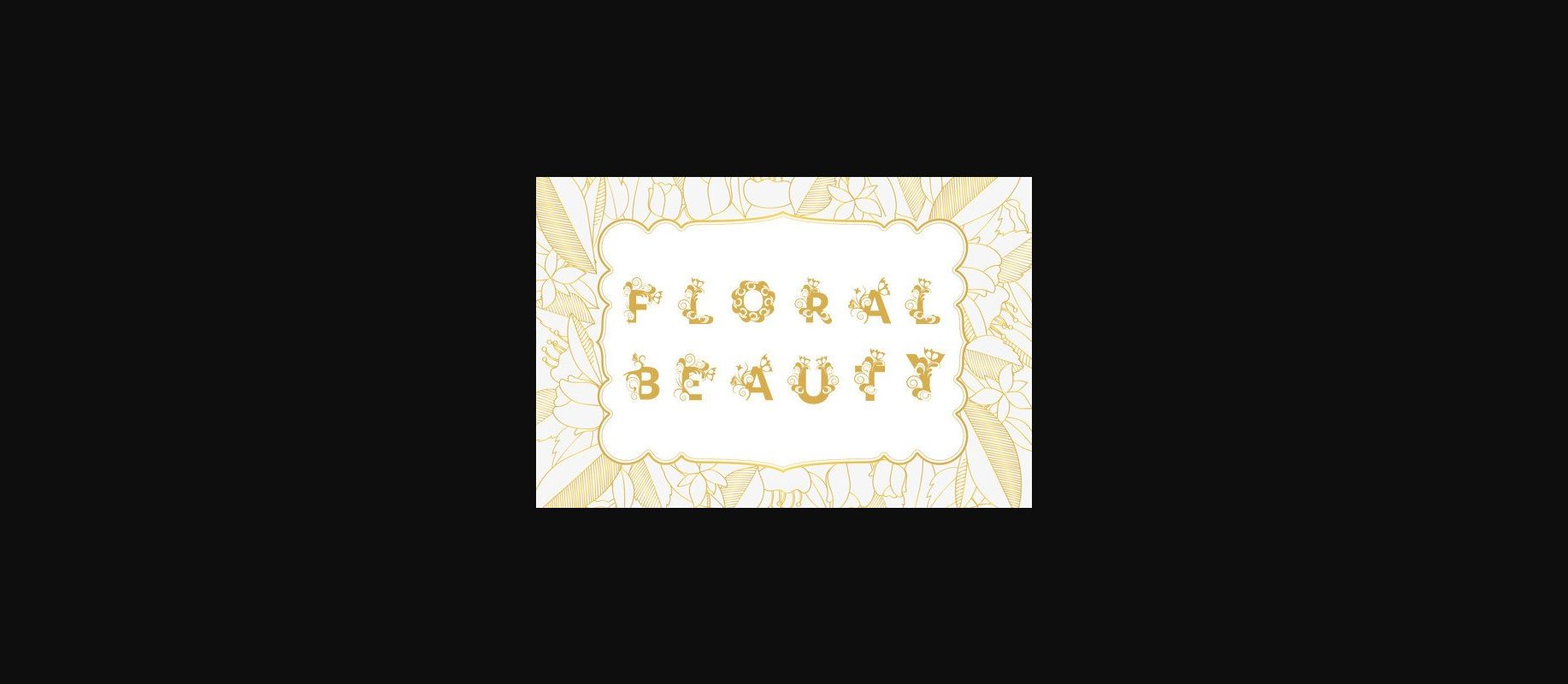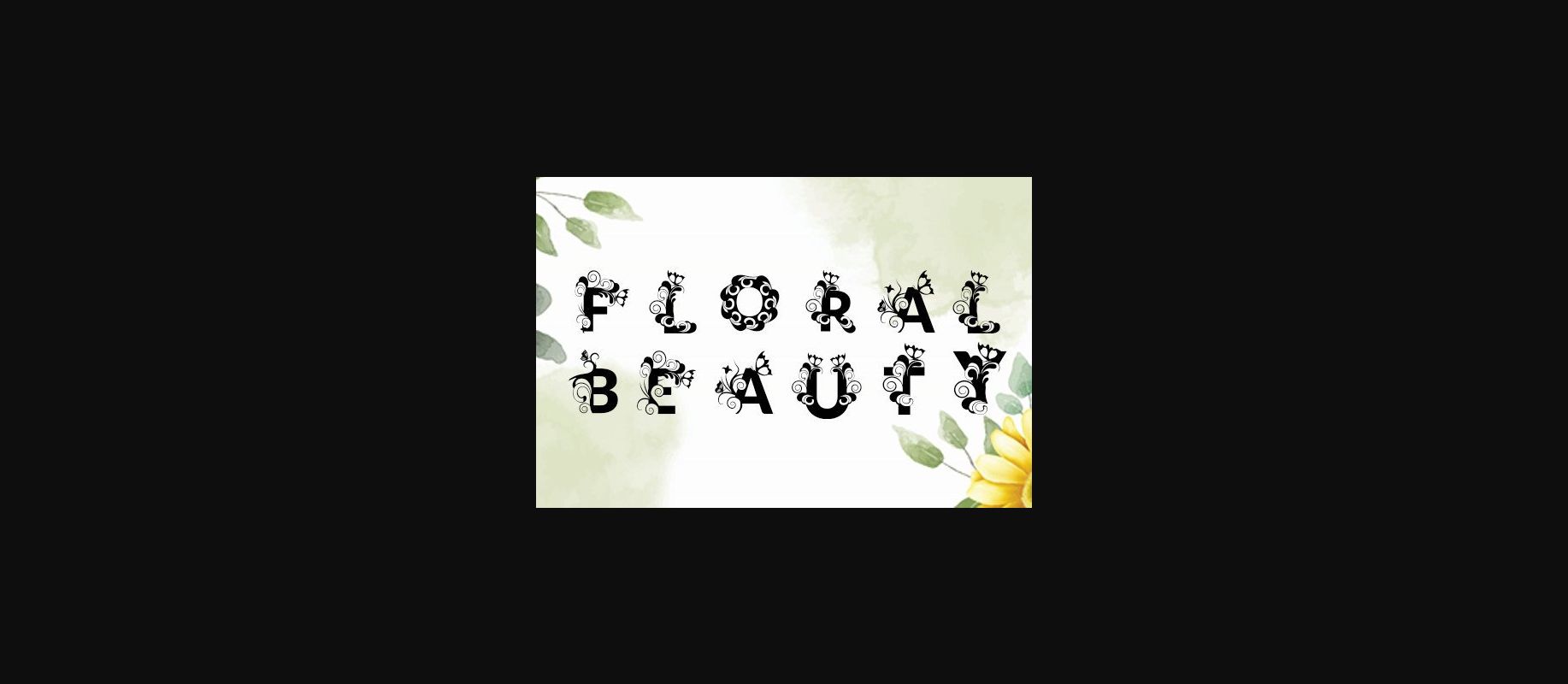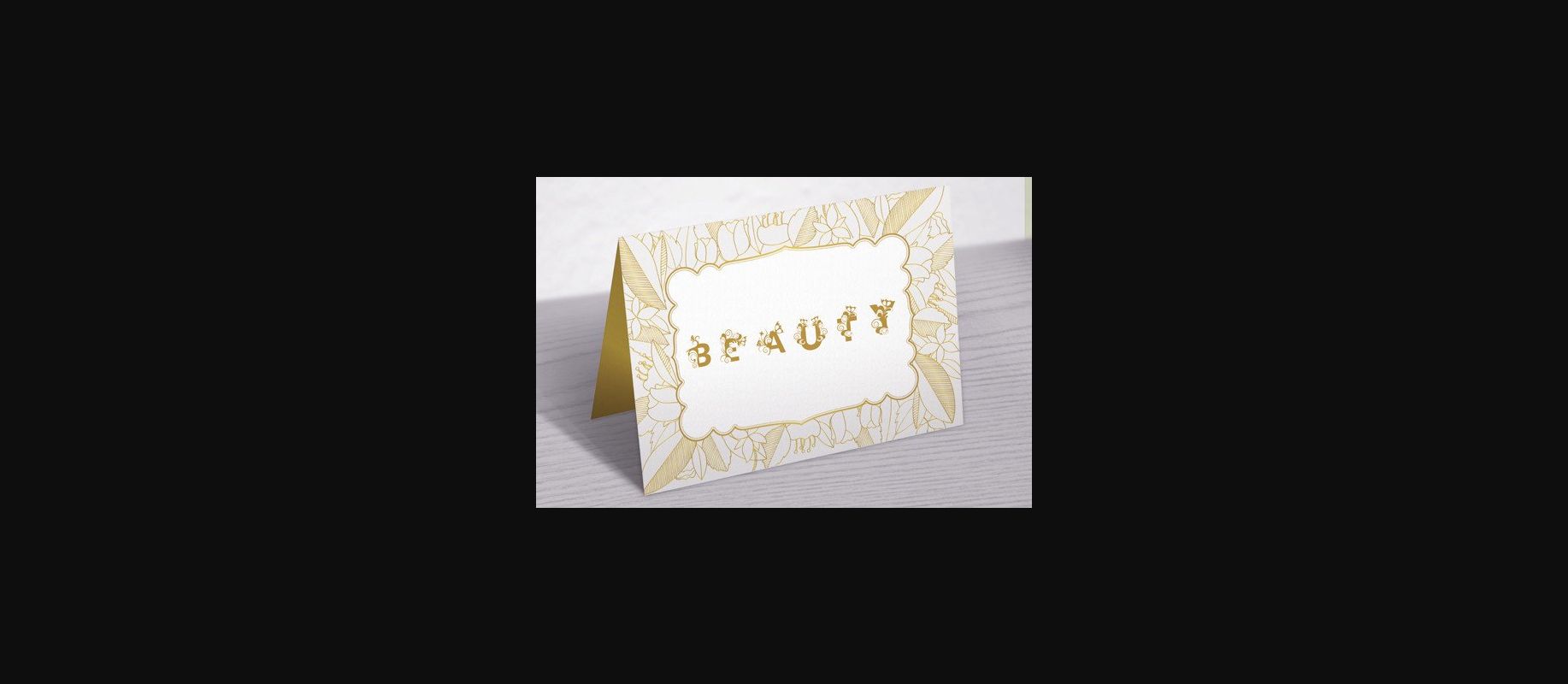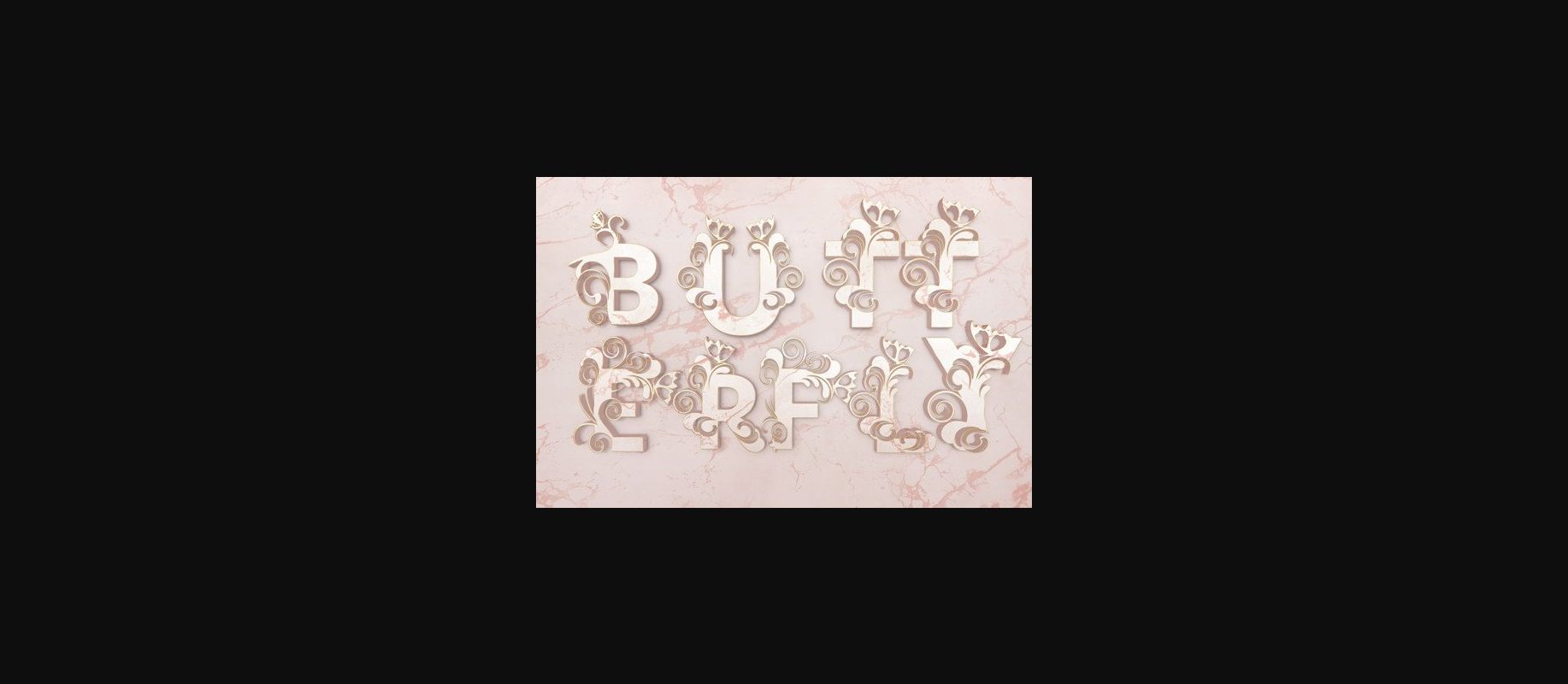
Floral Beauty Font
About Floral Beauty Font
Floral Beauty is an elegant all-caps decorative font with lovely ornaments. Create stunning wedding invitations, beautiful stationary art, eye-catching social media posts, and cute greeting cards using its authentic feel.